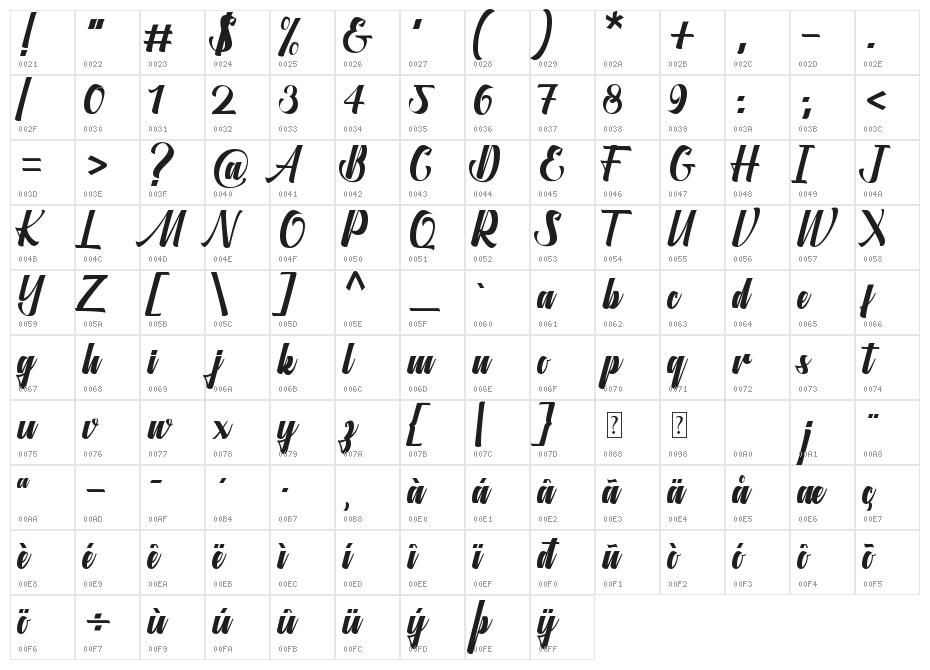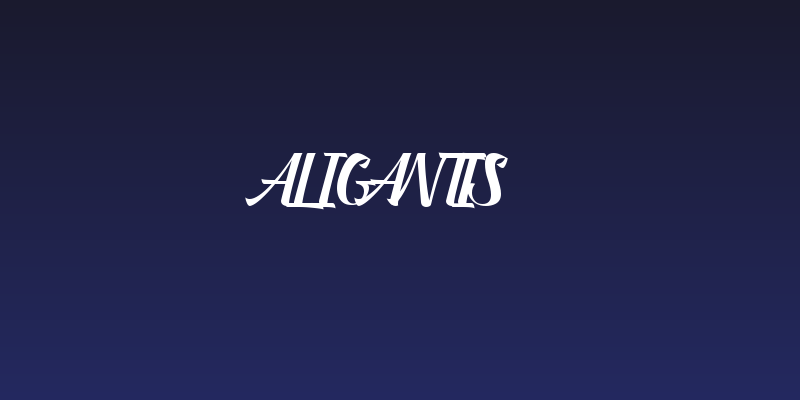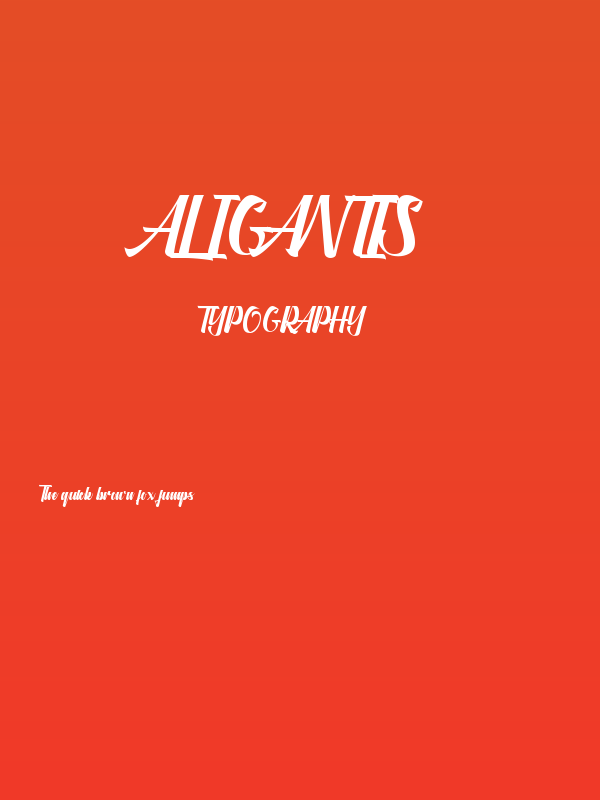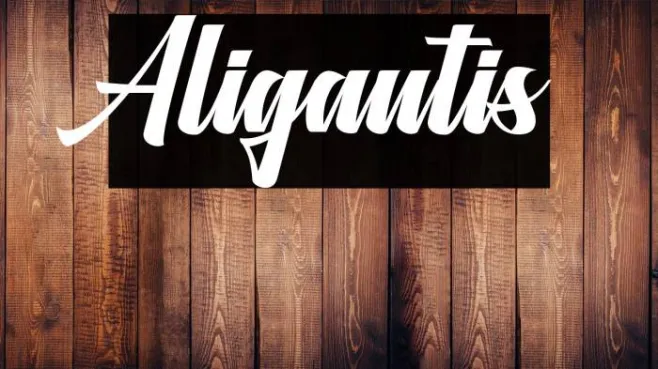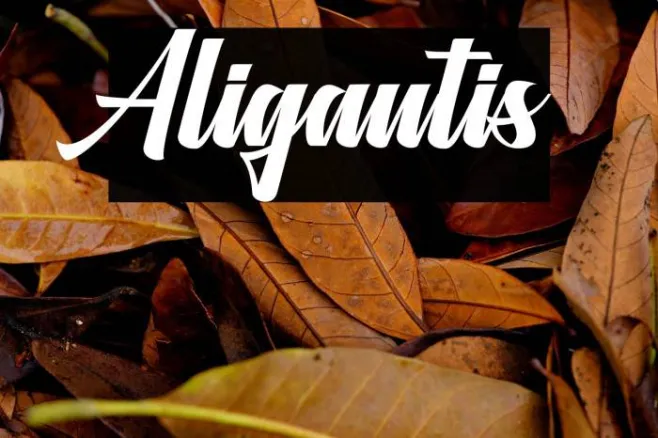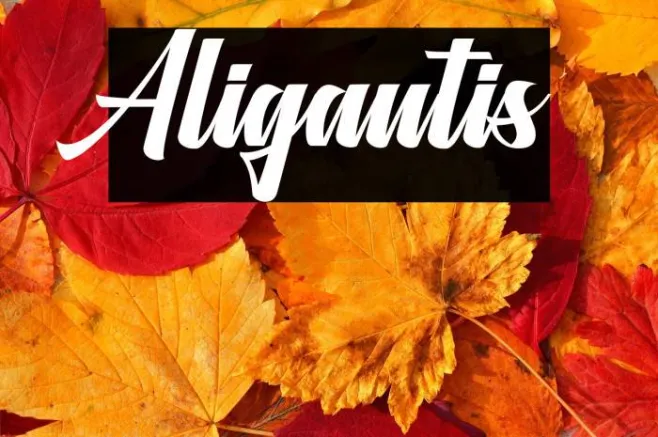
Aligantis Font
Aligantis Description
This font exudes a dynamic and energetic style, characterized by its bold, sweeping strokes and cursive flair. The uppercase letters are tall and elegant, with a slight slant that adds a sense of motion and fluidity. The lowercase letters maintain this cursive style, offering a harmonious blend of thick and thin lines that create a lively rhythm. The numerals are equally bold, with distinctive curves that ensure readability while maintaining the font's overall aesthetic. Special characters are crafted with the same attention to detail, making them seamlessly integrate with the rest of the typeface. This font is perfect for projects that require a touch of sophistication and flair, such as branding, invitations, or editorial design.
| Proposed Projects | Ideal for branding, invitations, editorial design, and any project needing a sophisticated touch. |